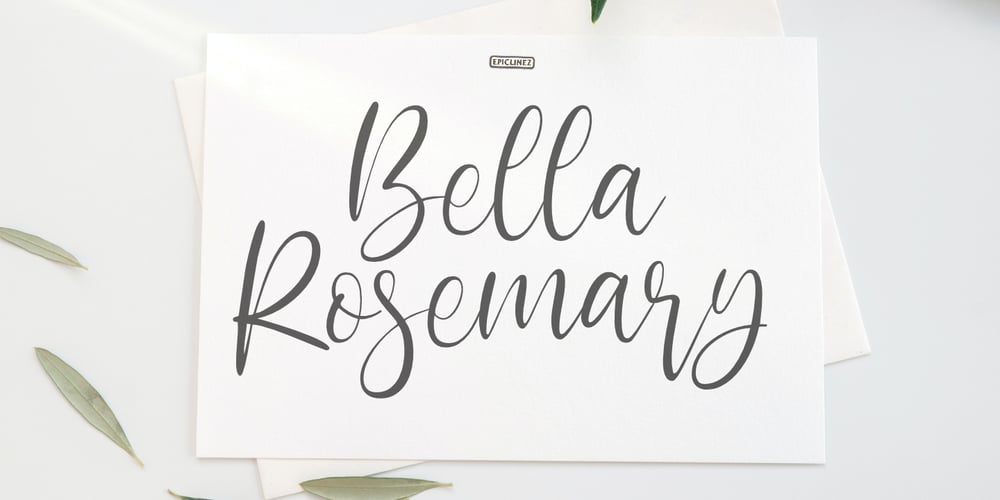
Bella Rosemary Font Family was designed by Aldy Sidik and published by Epiclinez. Bella Rosemary contains 1 styles and family package options. Bella Rosemary is a stylish modern calligraphy font. Use it for any design projects that require a charming appearance!